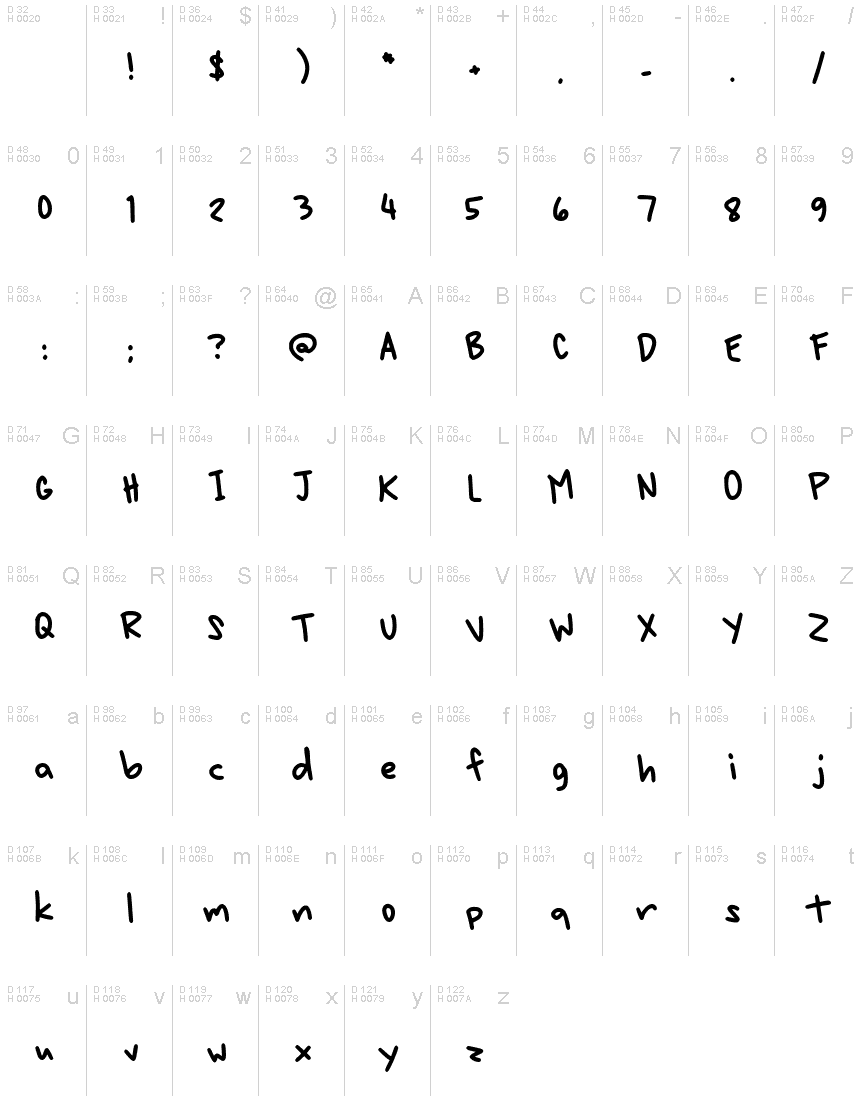
Thats Less Than Last Ti Regular
Thats Less Than Last Time, designed by arisSome1, is a casual handwritten font that exudes a laid-back charm. With its semi-light weight, this font is perfect for projects that aim to convey a friendly and approachable vibe. It is ideal for creating eye-catching logos, invitations, and social media graphics that need a touch of personalization. Whether you're designing a quirky café menu or crafting playful greeting cards, Thats Less Than Last Time will add an effortless flair to your project while making it stand out from the crowd.
my actual handwriting as a font. it's free to use.